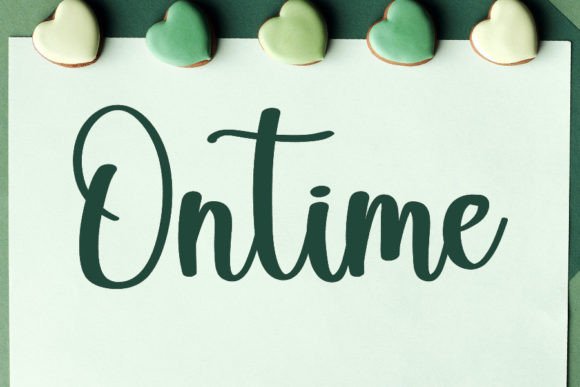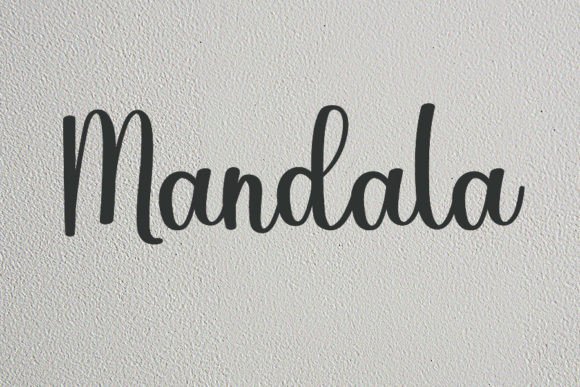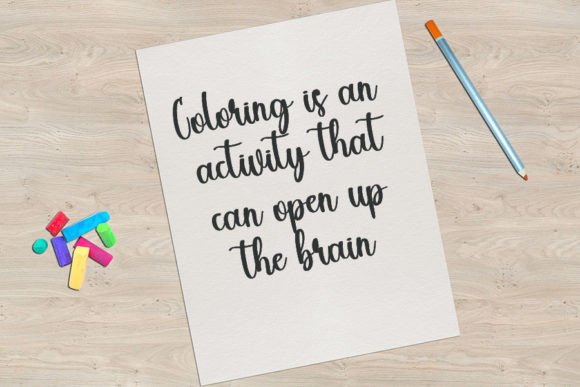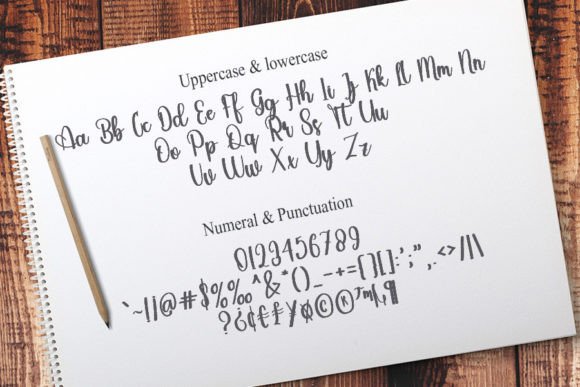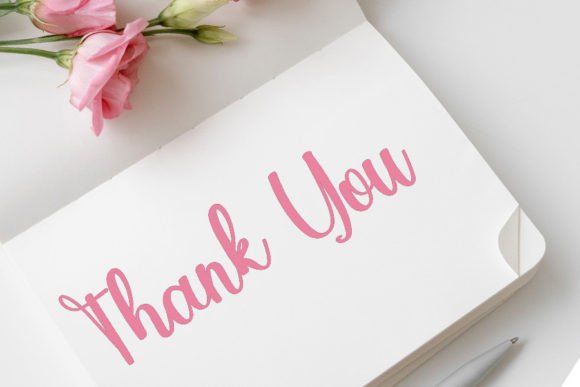
About Sothing Font
Sothing is a simple, cute, and elegant handwritten font. Add this adorable and incredibly versatile font to each of your creative holiday designs, and notice how they level up.